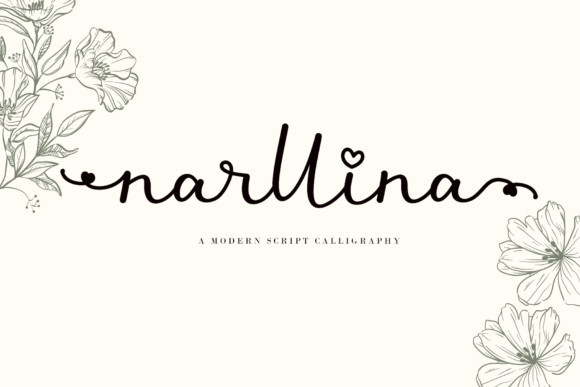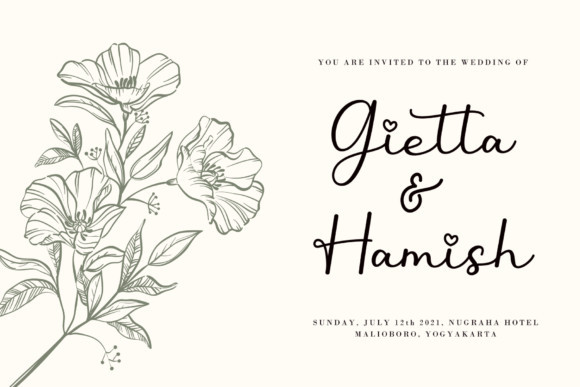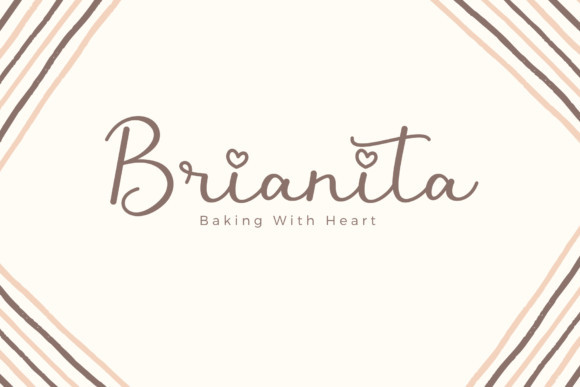
Narllina Font
Narllina is a beautiful and light handwritten font, that features a romantic vibe. It will add a luxury spark to any design project that you wish to create! This font is PUA encoded which means you can access all of the amazing glyphs and ligatures with ease!